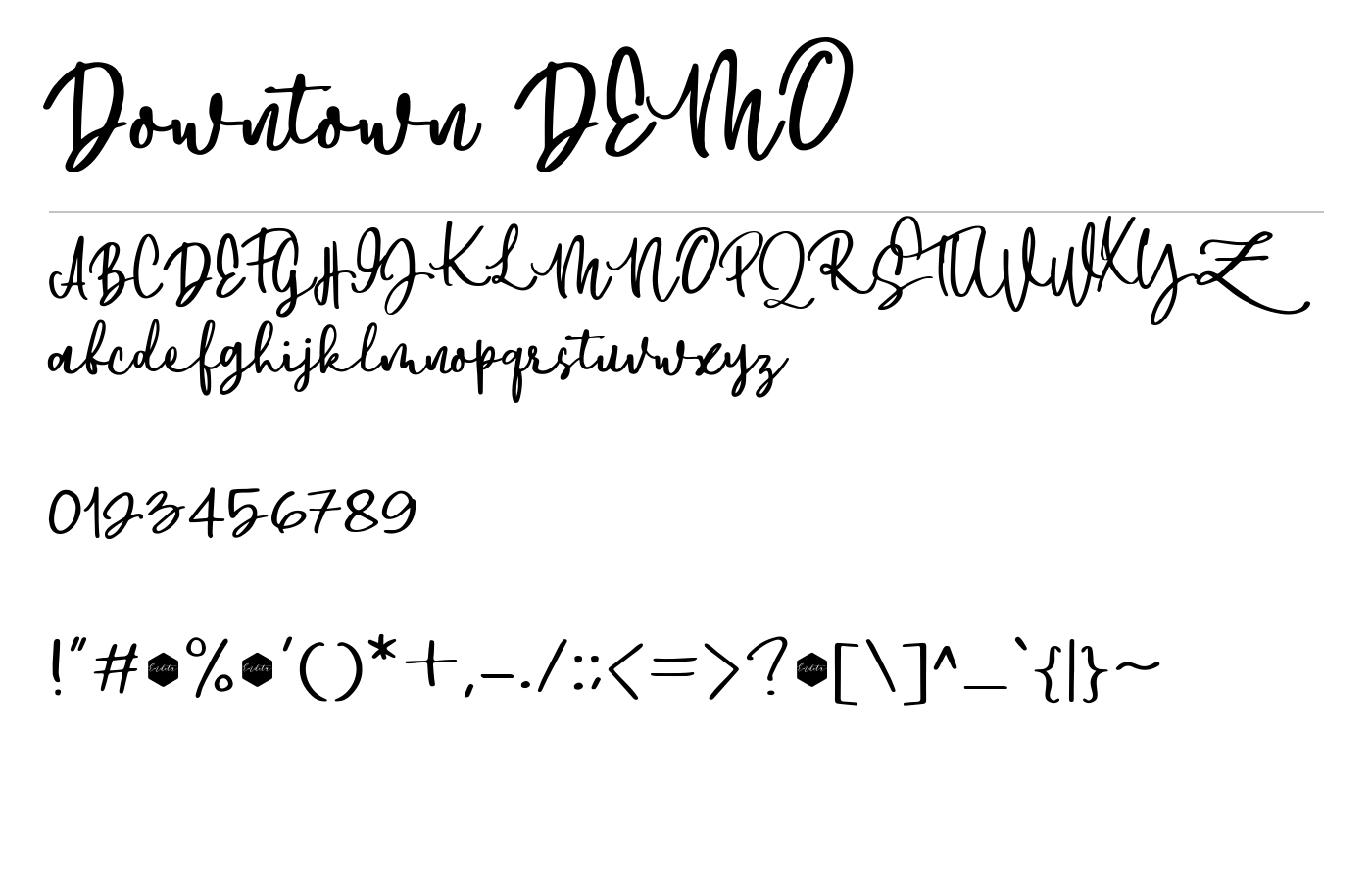
Downtown Font is a lively and elegant script typeface featuring smooth, flowing strokes that mimic natural handwriting. Its balanced mix of tall, slightly condensed letterforms and a consistent medium weight creates a friendly yet sophisticated feel, perfect for stylish branding, invitations, and editorial headlines where a personal, creative touch is desired. This font shines in projects needing warmth and character without sacrificing readability.
Downtown Font
About Downtown Font
| Font family | Downtown Font |
| Designer | Ingga Endita Nafasyah |